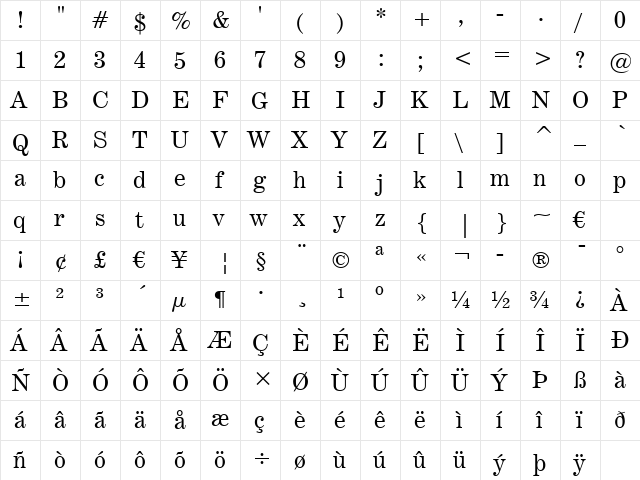
CenturyExpd BT Roman
Design Context for CenturyExpd BT Typeface
CenturyExpd BT is a composed and adaptable typeface that performs quietly and consistently across a wide range of design contexts.